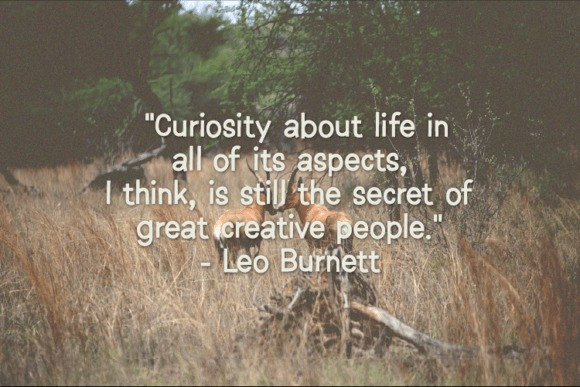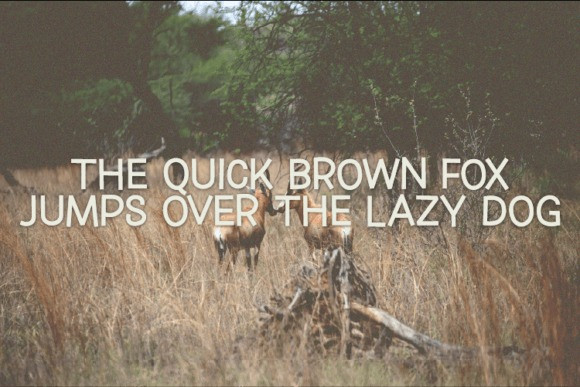
Rubbing Font
Rubbing Font is an interesting and unique sans serif font perfect for quotes, notes, T-shirts, and many more. Add it to your font collection, and it will make your creative projects outstanding!